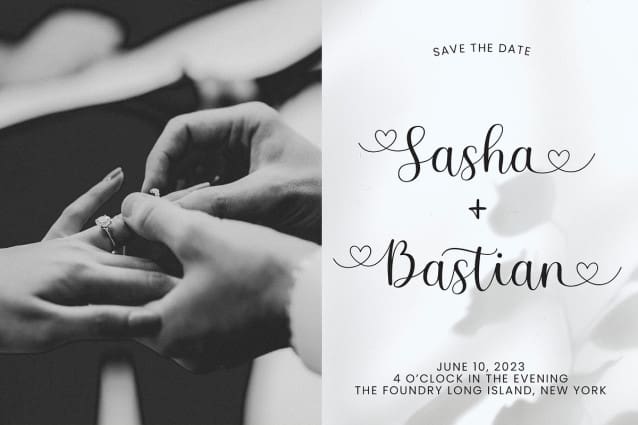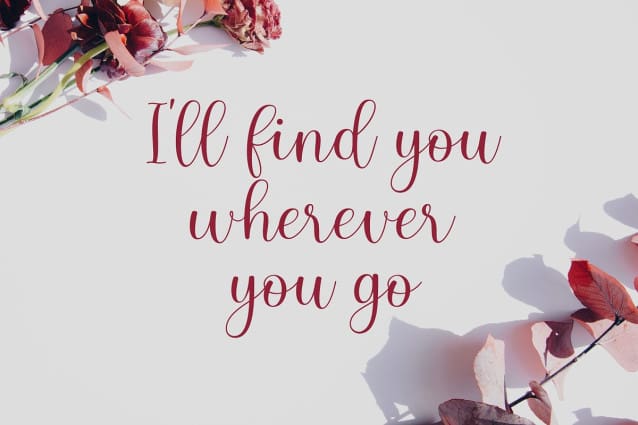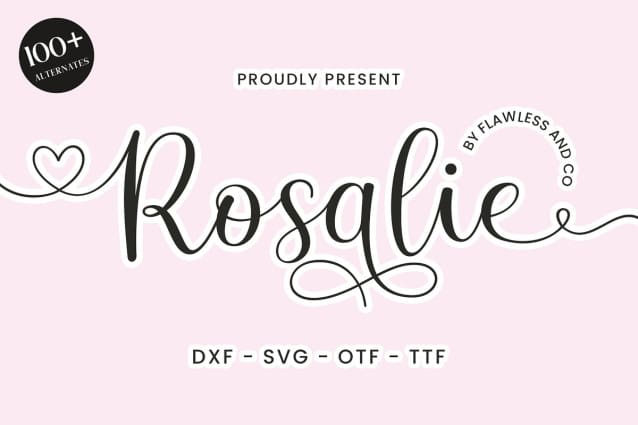
Rosalie Script Typeface
Rosalie Script Typeface, our latest creation, Modern Caligraphy font with various alternates and ligatures, multilingual support, an updated blend of bohemian style, suitable for branding, business, logos, magazines, and others